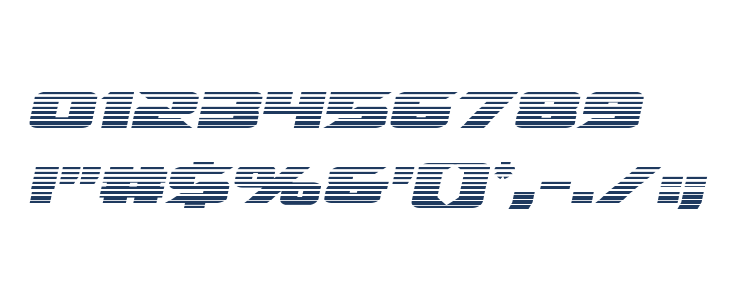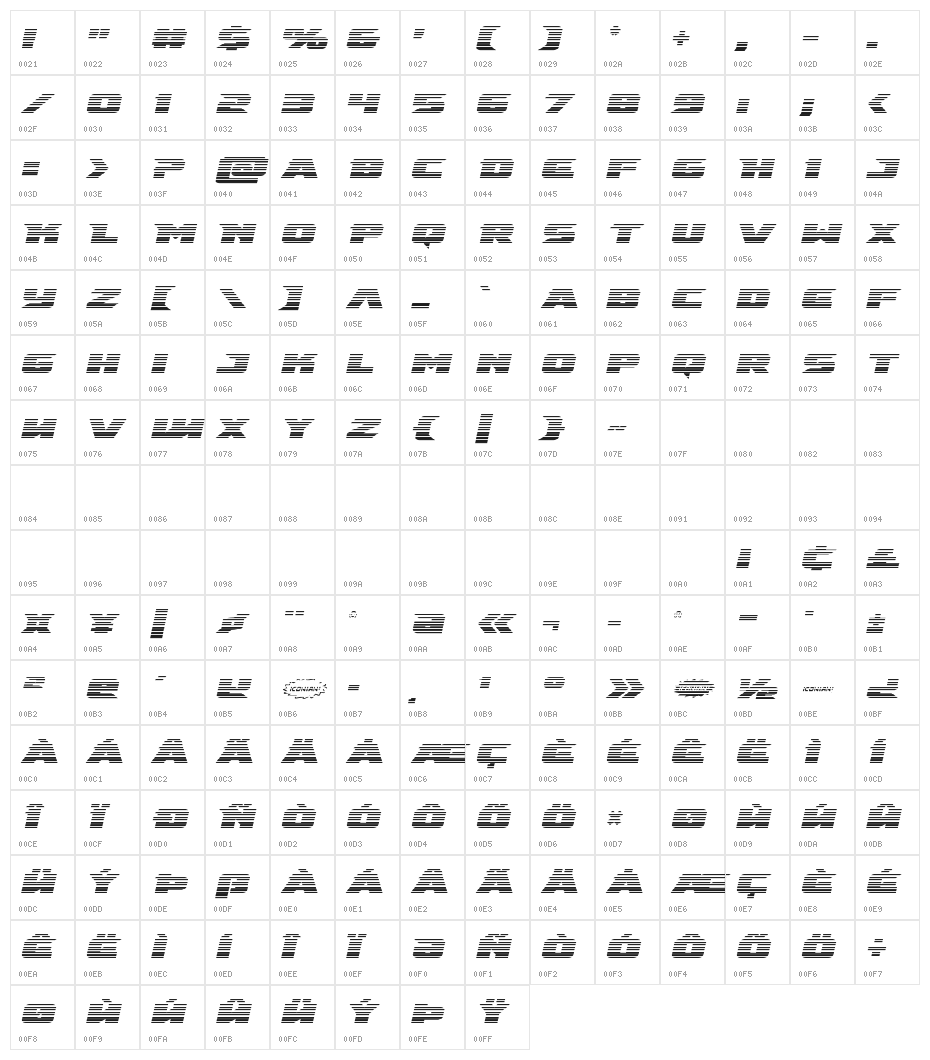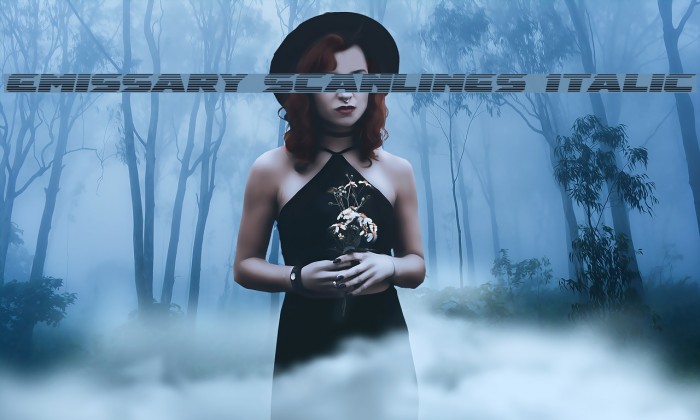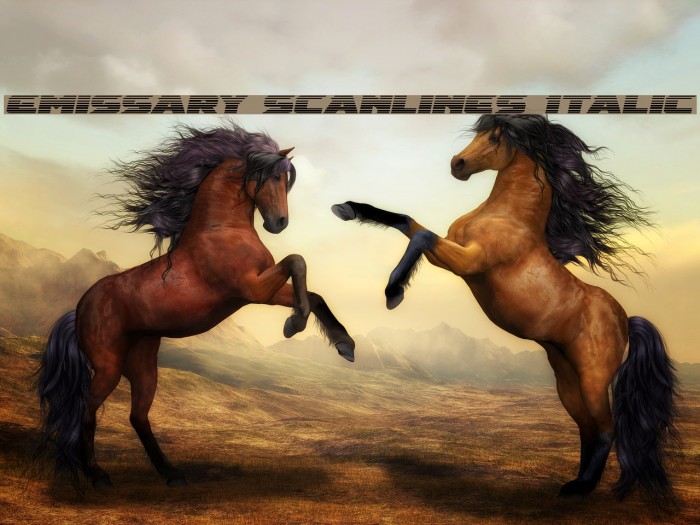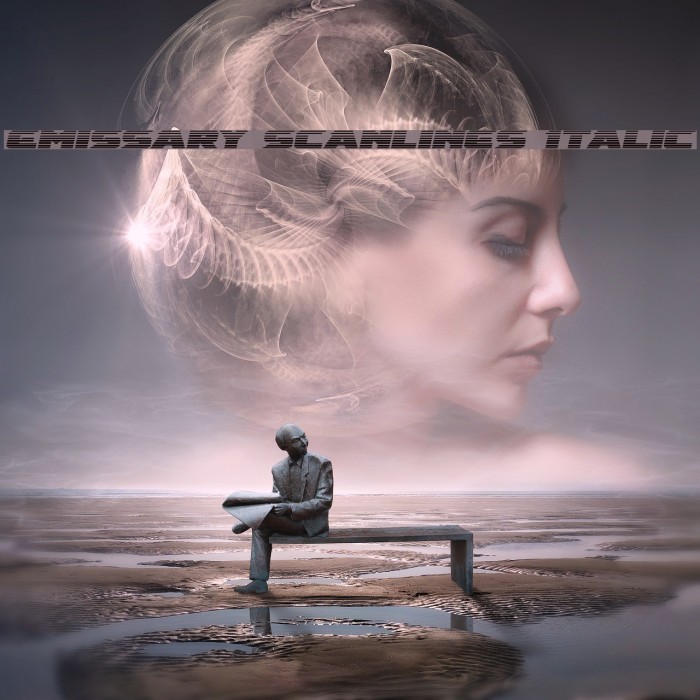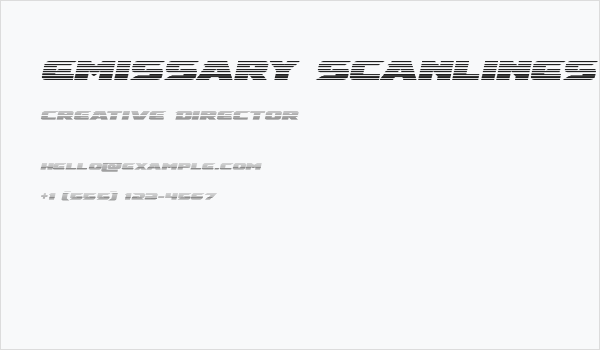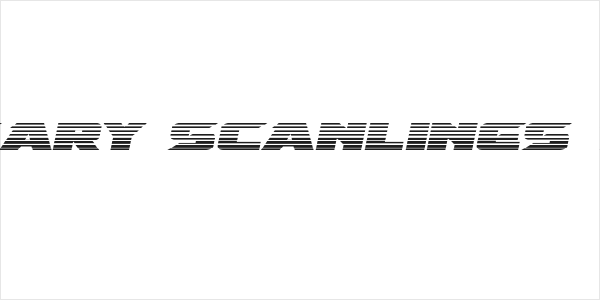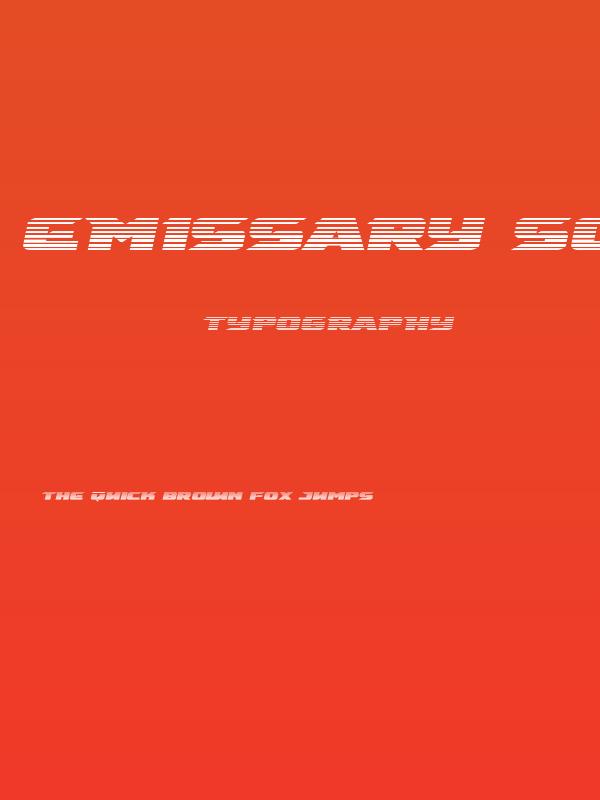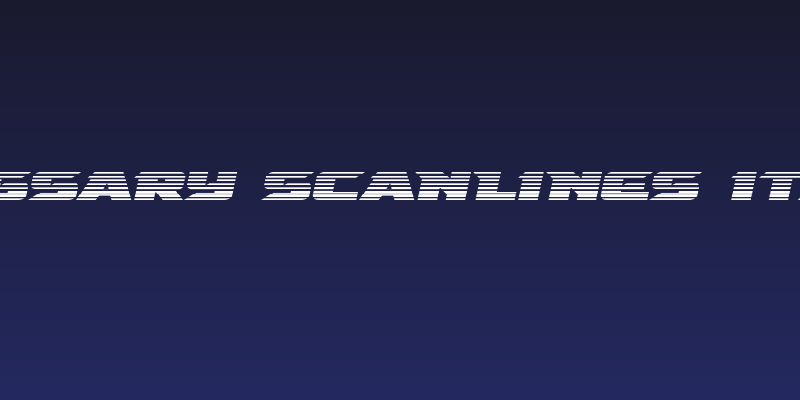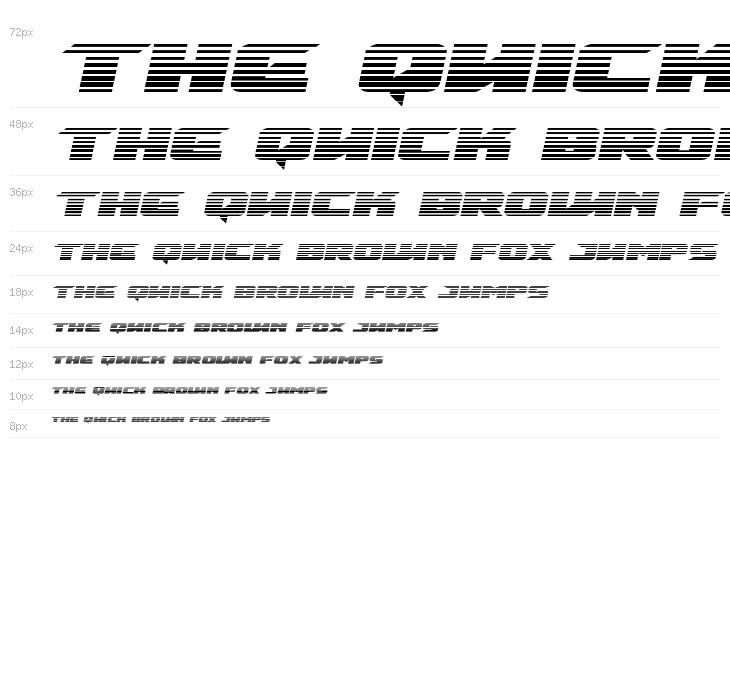
Emissary Scanlines Italic Font
Emissary Scanlines Italic Description
This font features a futuristic and dynamic design with a distinct scanline effect running horizontally across each character. The italicized style adds a sense of motion and speed, making it ideal for projects that require a modern and tech-savvy appearance. The uppercase and lowercase letters maintain a consistent width, while the numbers and special characters are designed to match the overall aesthetic. The font's unique style is perfect for digital and sci-fi themed projects, offering a bold and eye-catching look.
| Proposed Projects | Ideal for video game titles, tech company logos, sci-fi movie posters, and digital media projects. |